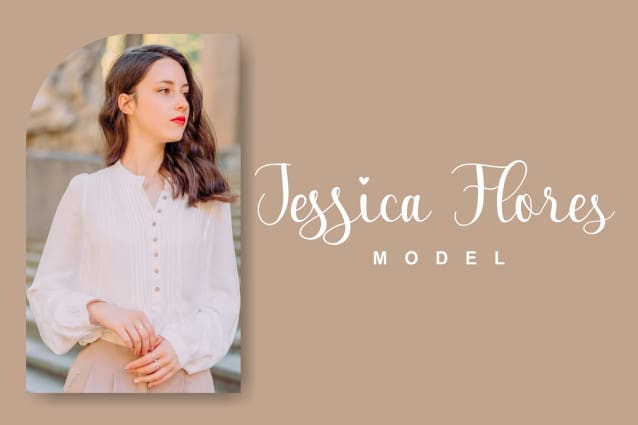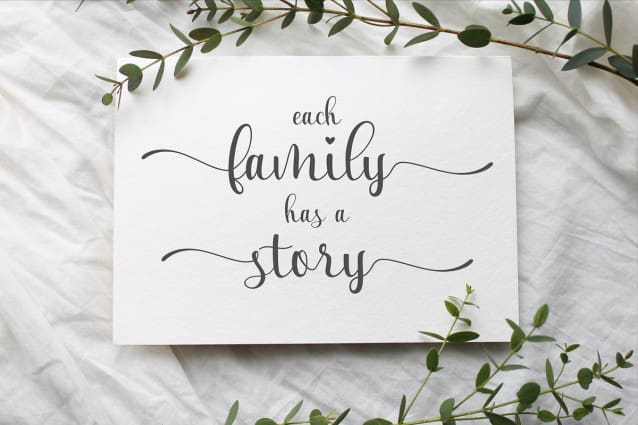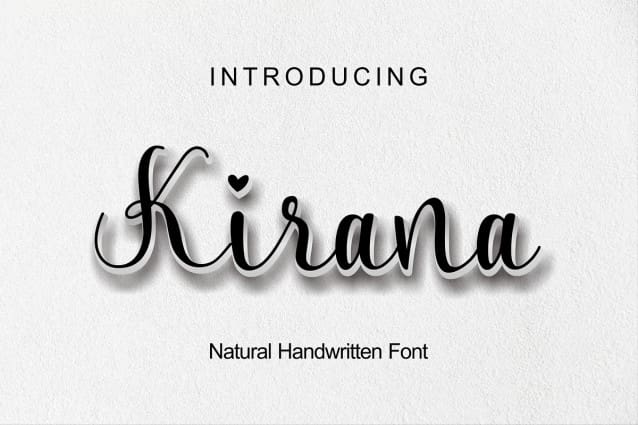
Kirana Script Typeface
Kirana Script Typeface is our new natural handwritten font, Kirana Script has been made with natural handwriting so it is very suitable for use in your various designs such as invitations, qoutes, apparel, and so on. This handwritten font includes all upper and lower case letters, numbers and the most common symbols and punctuation marks. Equipped with several alternative letters and letters with initial and final swashes, Kirana flows from letter to create beautiful natural handwriting.